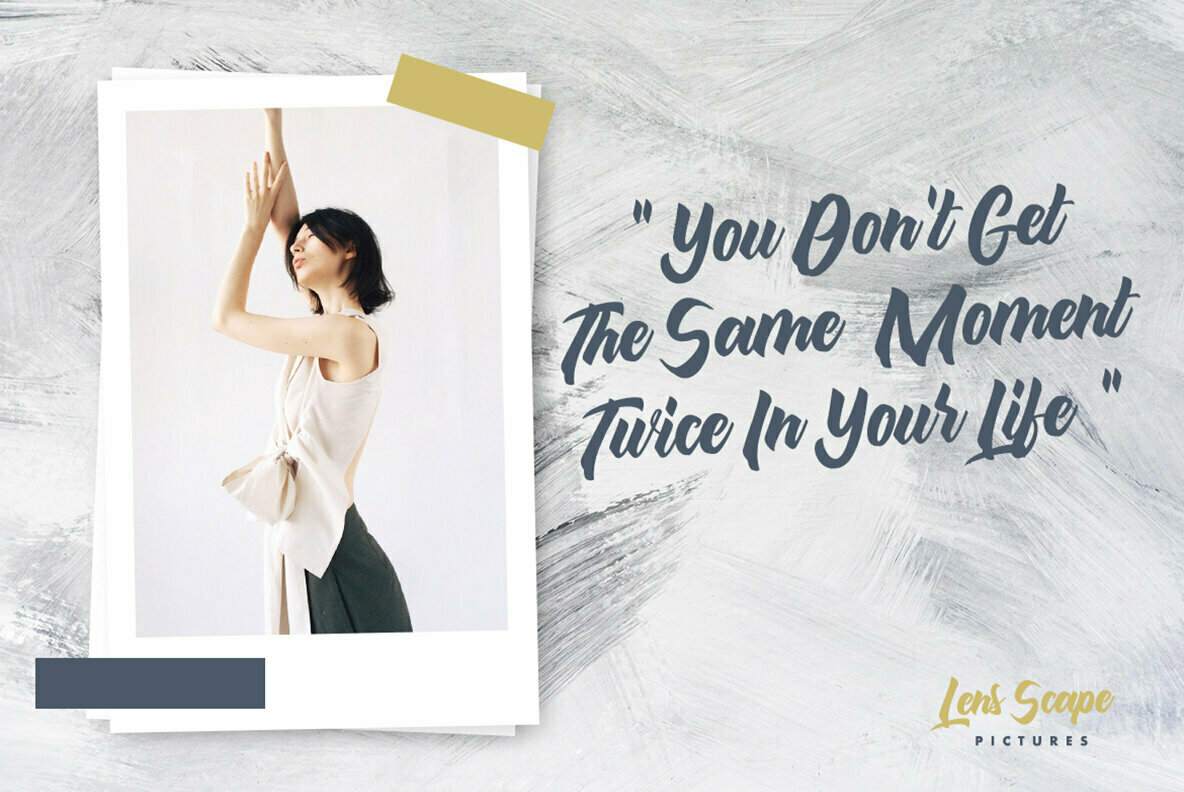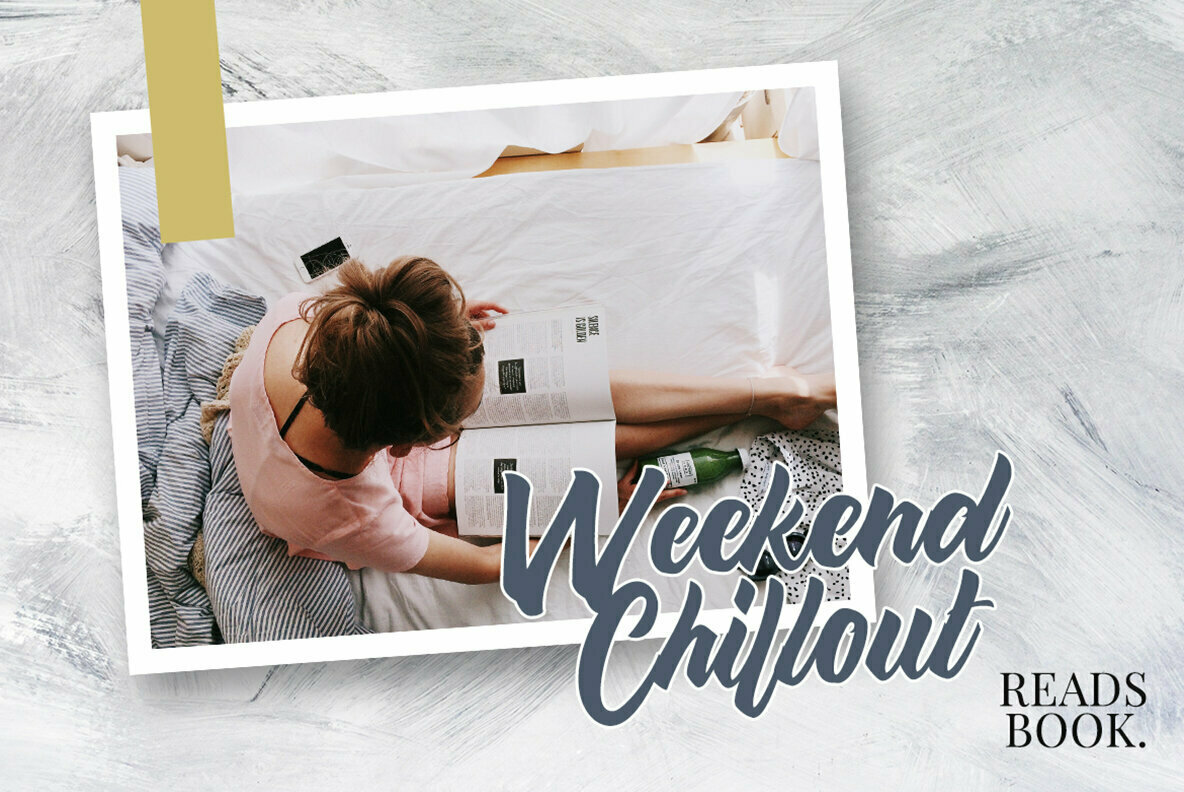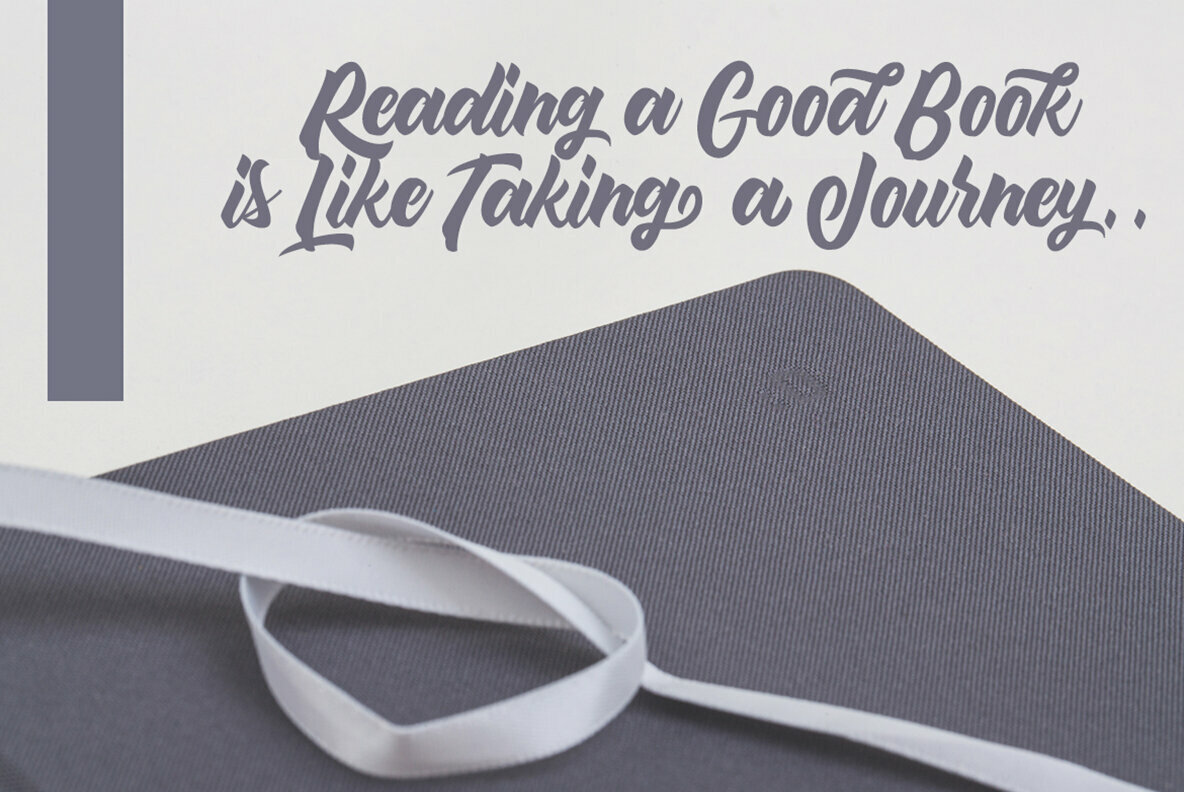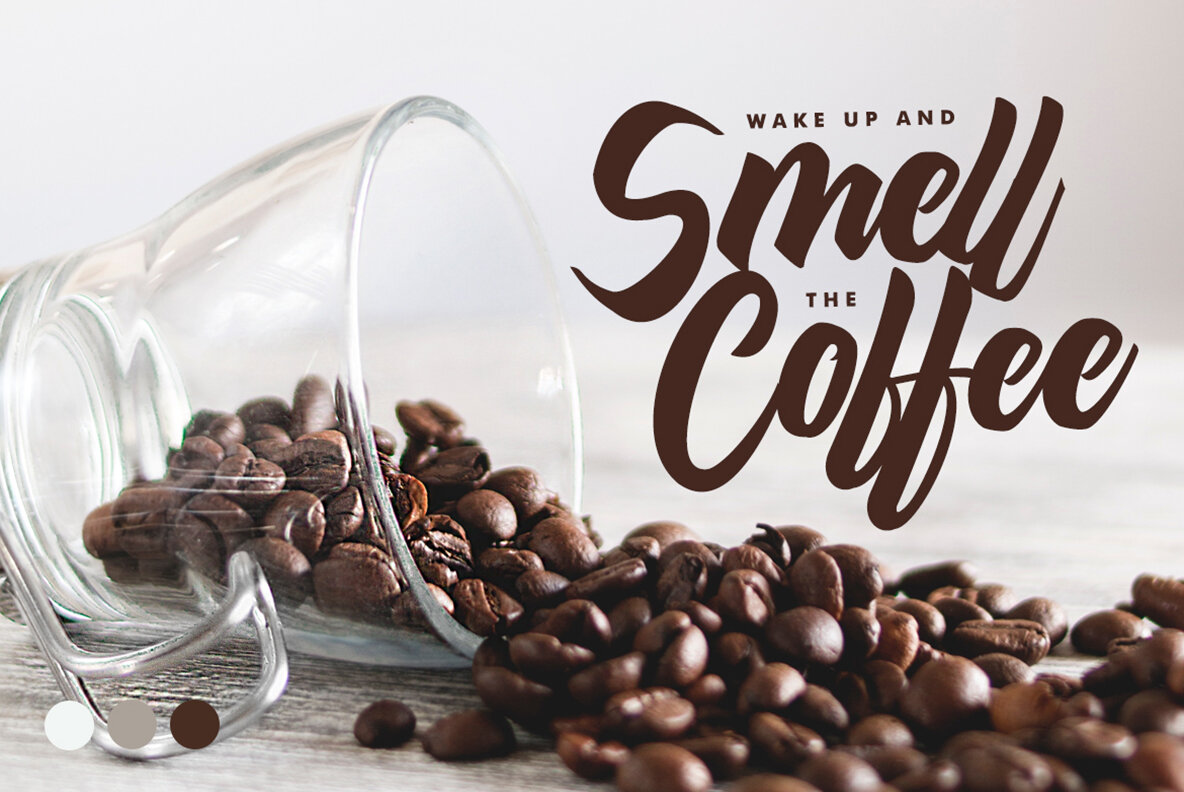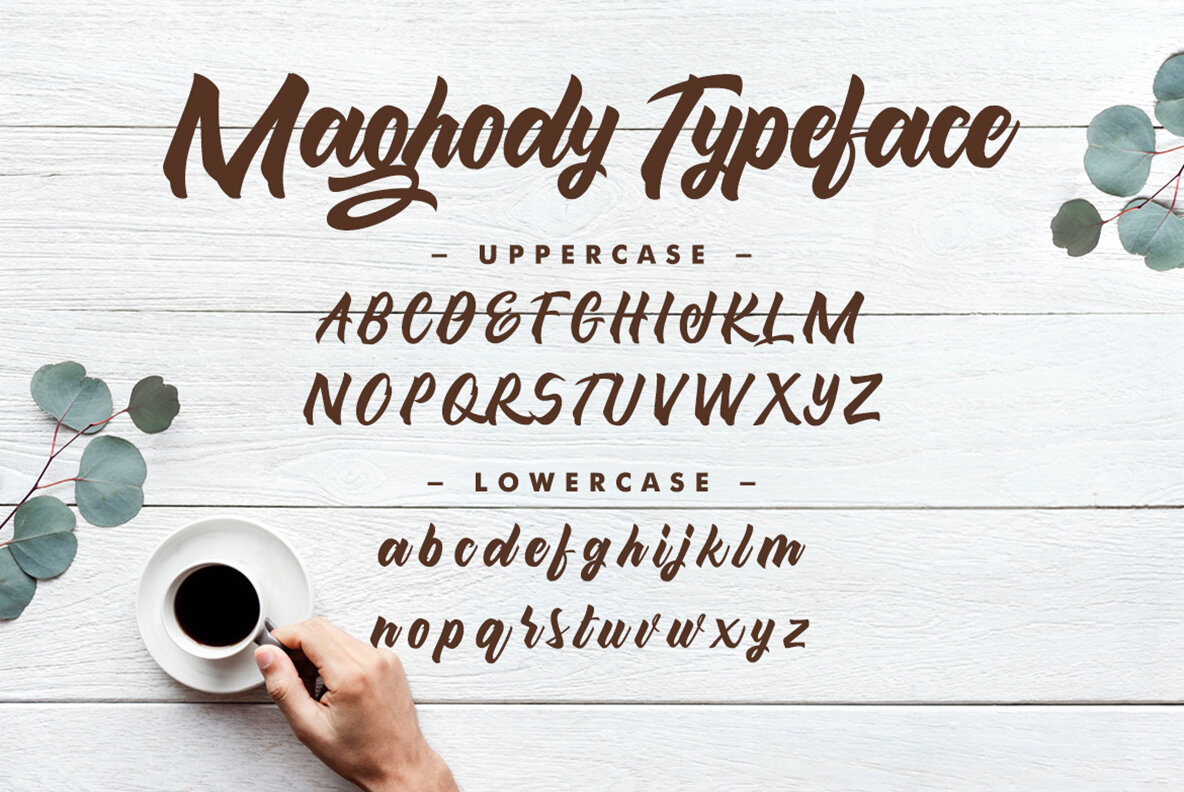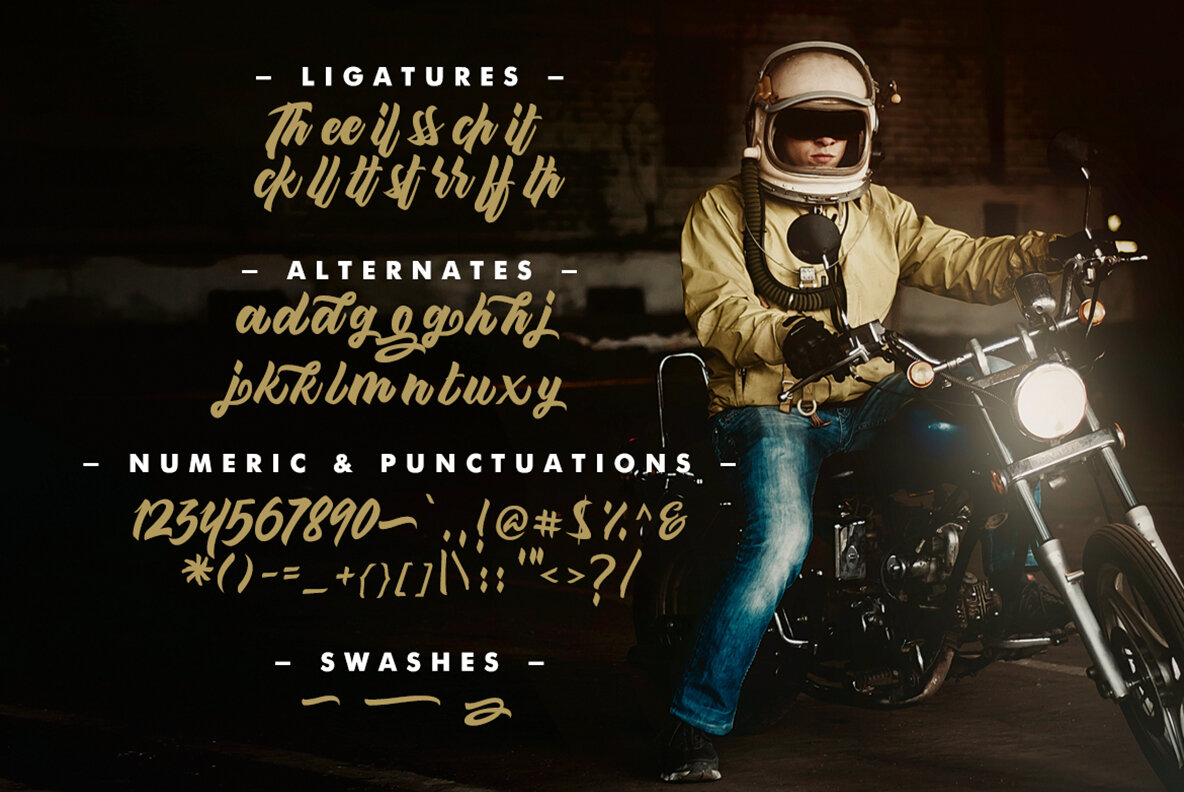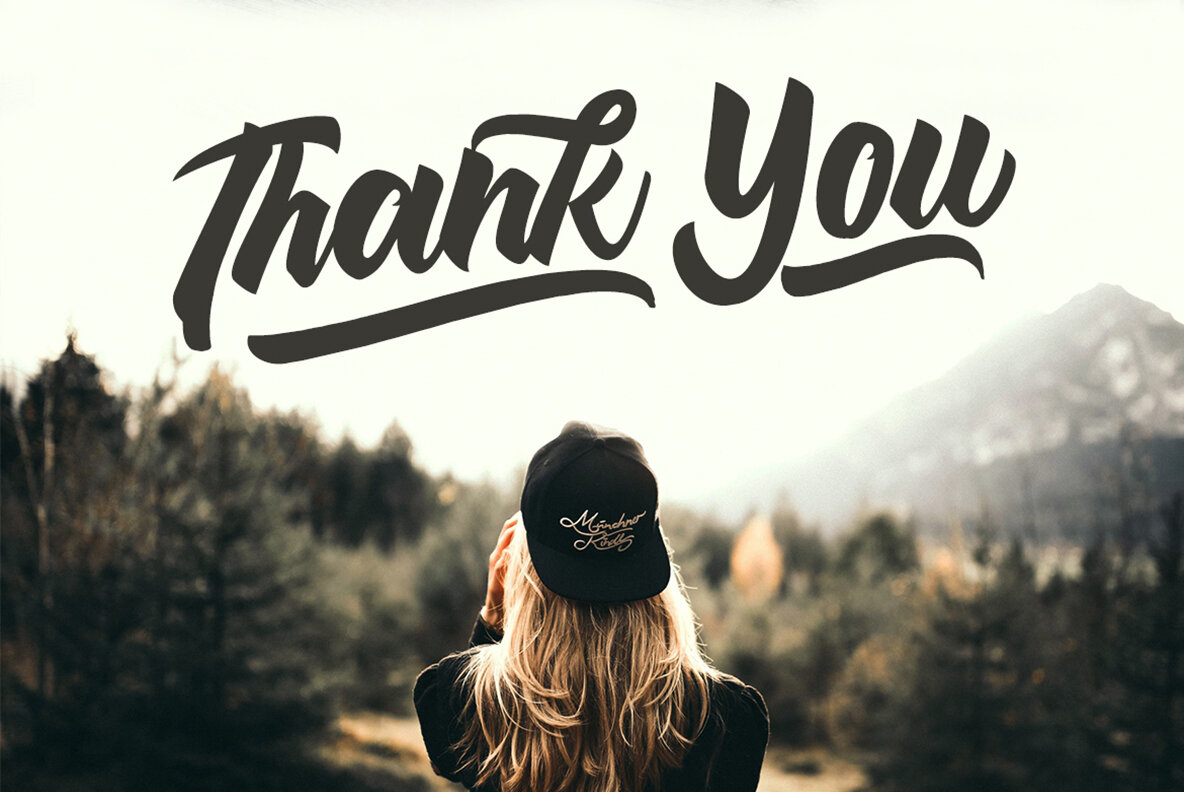
Maghody Script Font
Maghody
Maghody Script offers a compelling blend of elegance and strength, making it an ideal choice for a variety of design projects. Its bold, natural style suits creative endeavors where impact and clarity are essential. Whether crafting logos, invitations, or branding material, Maghody Script provides the versatility and charm that can elevate your work.Maghody Script: Bold and Natural Typeface
Design Features
We make stunning and cool design font type which suitable for any project purpose for your business.